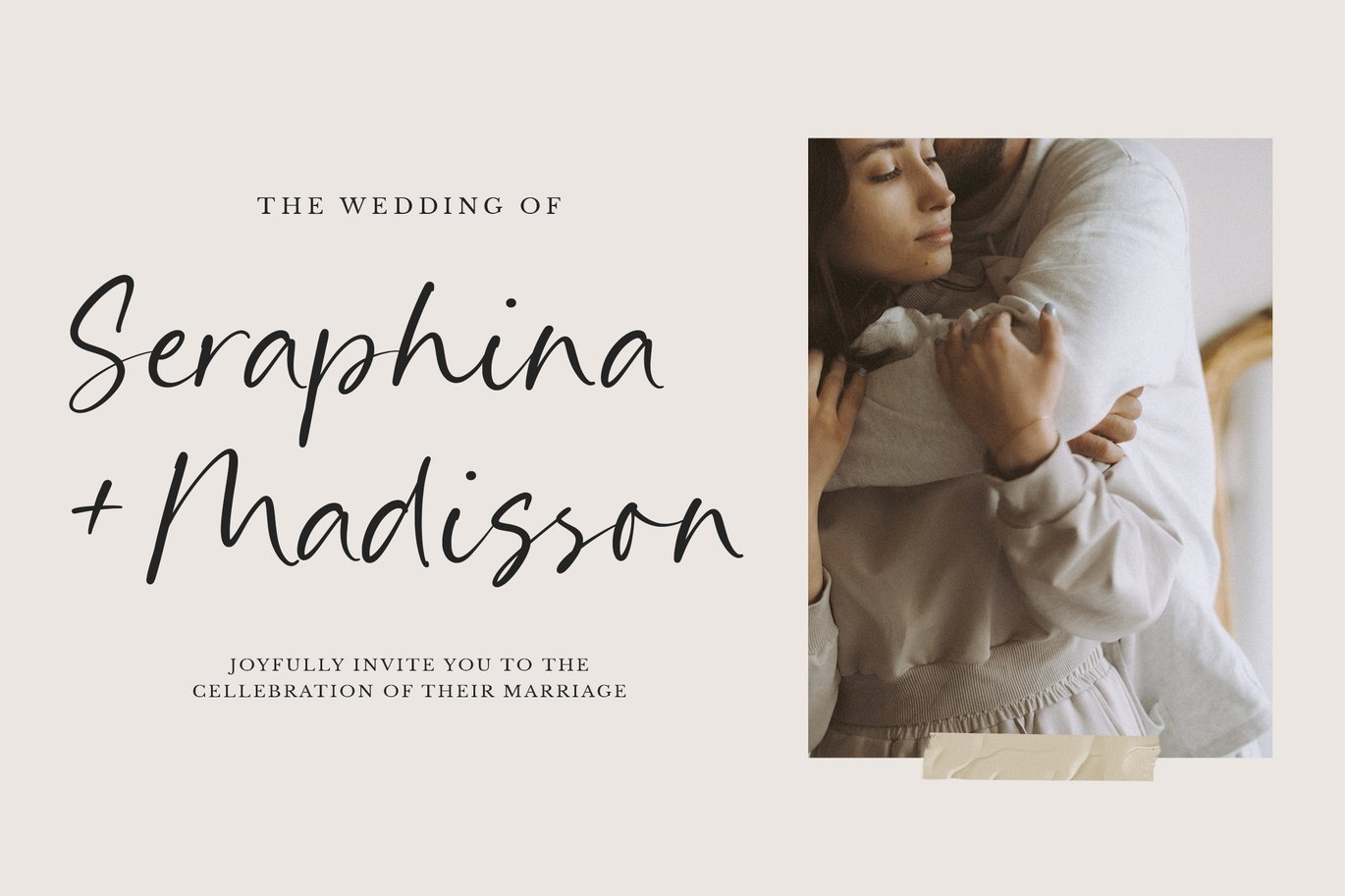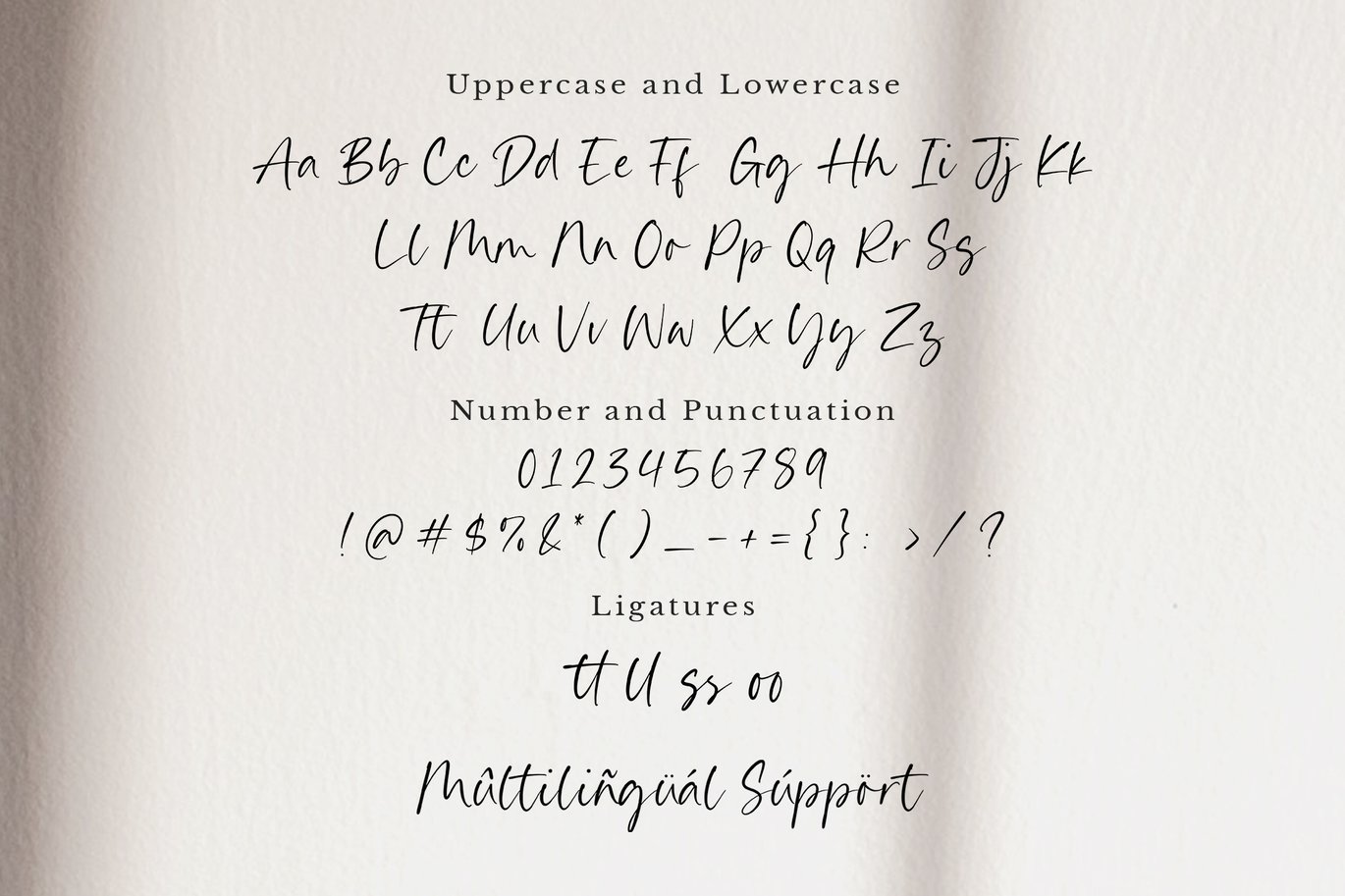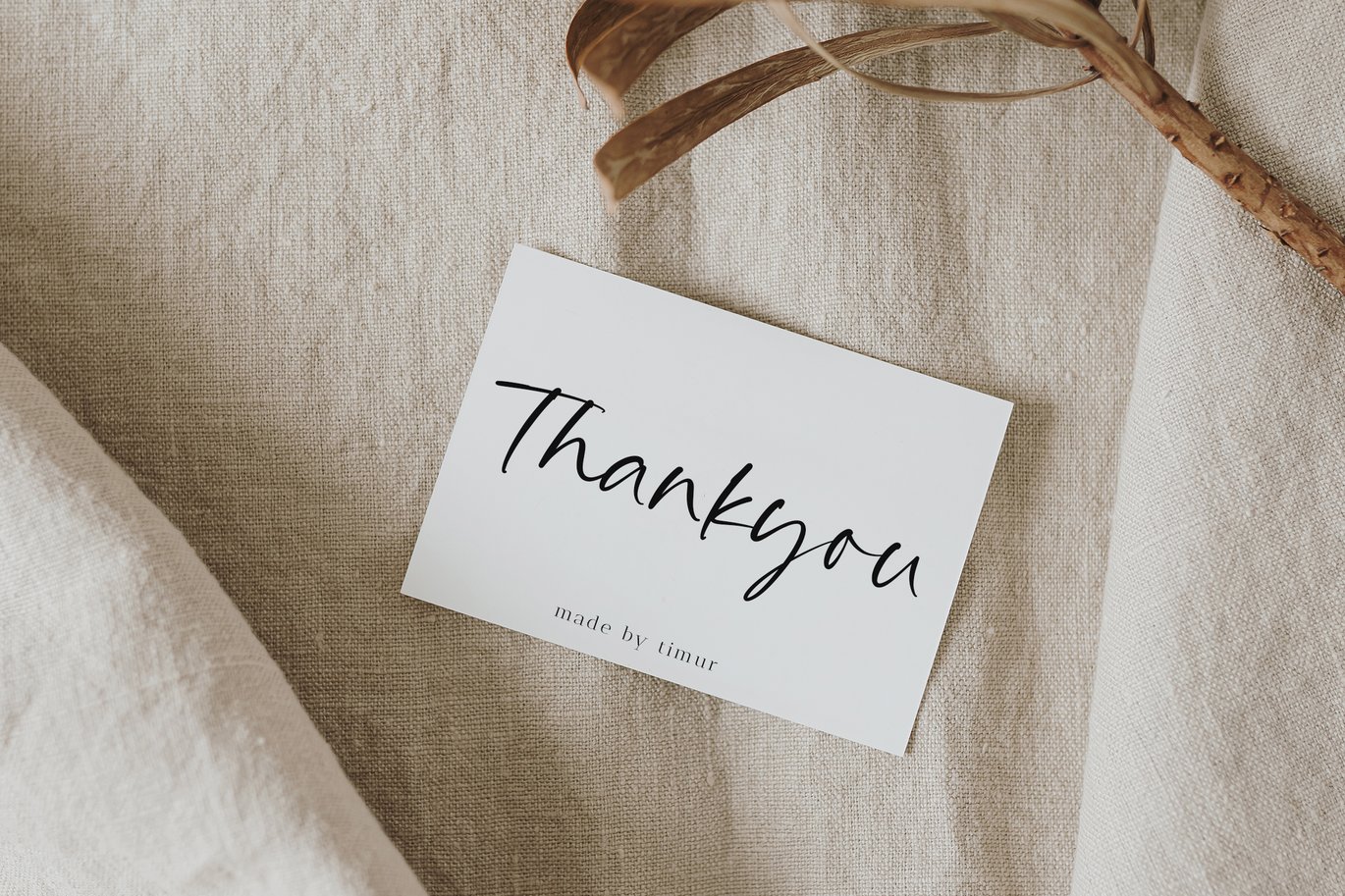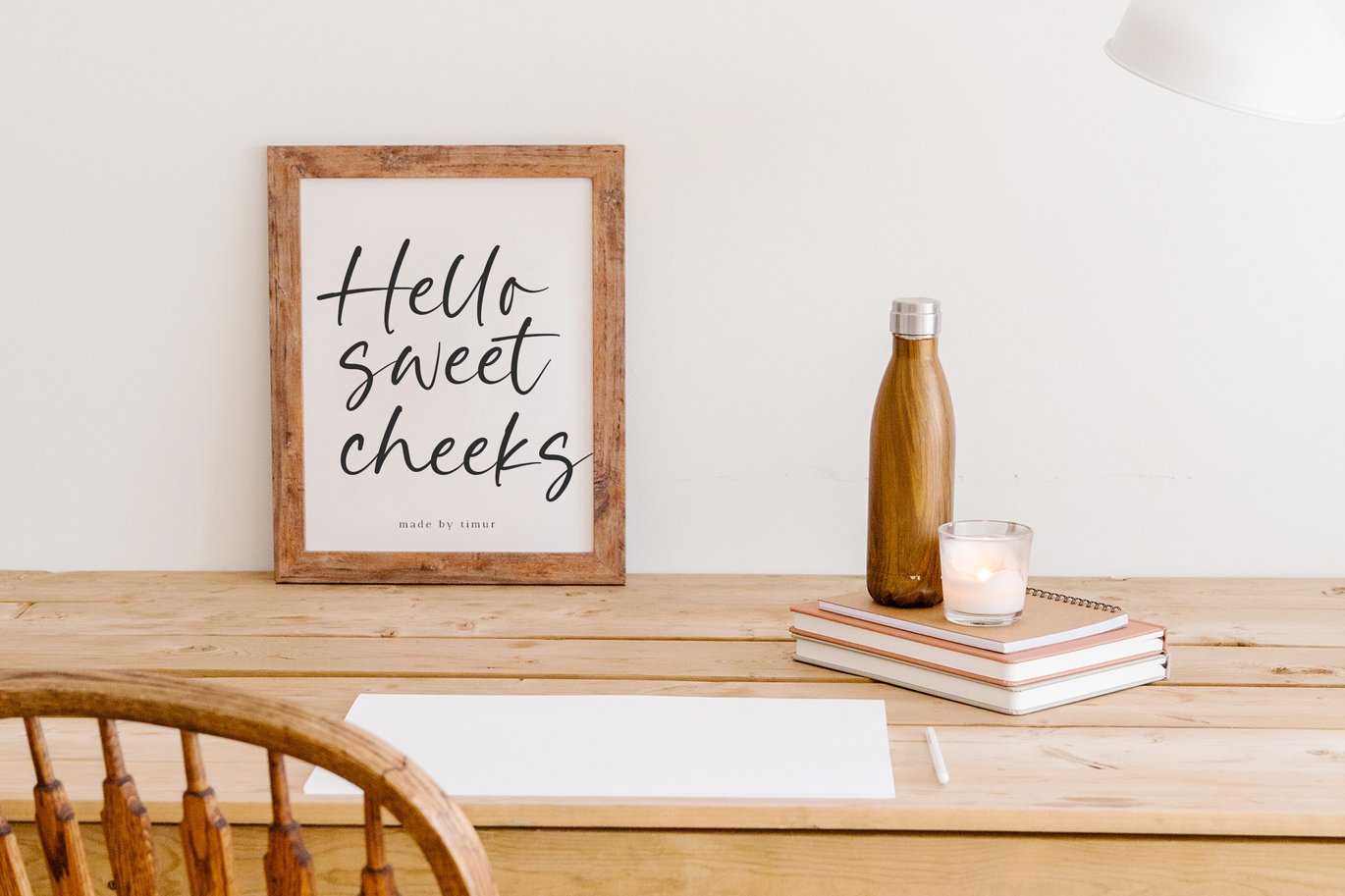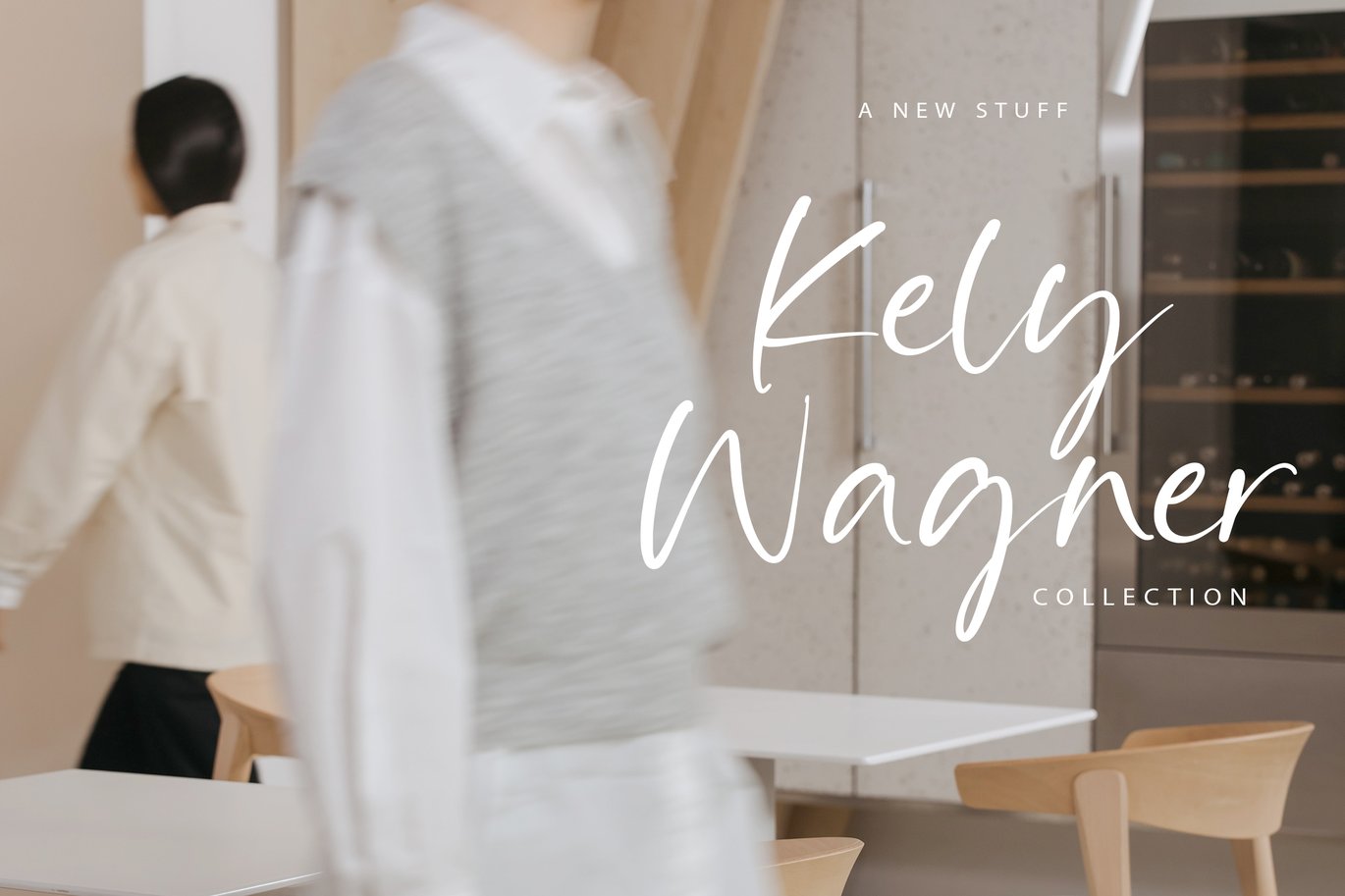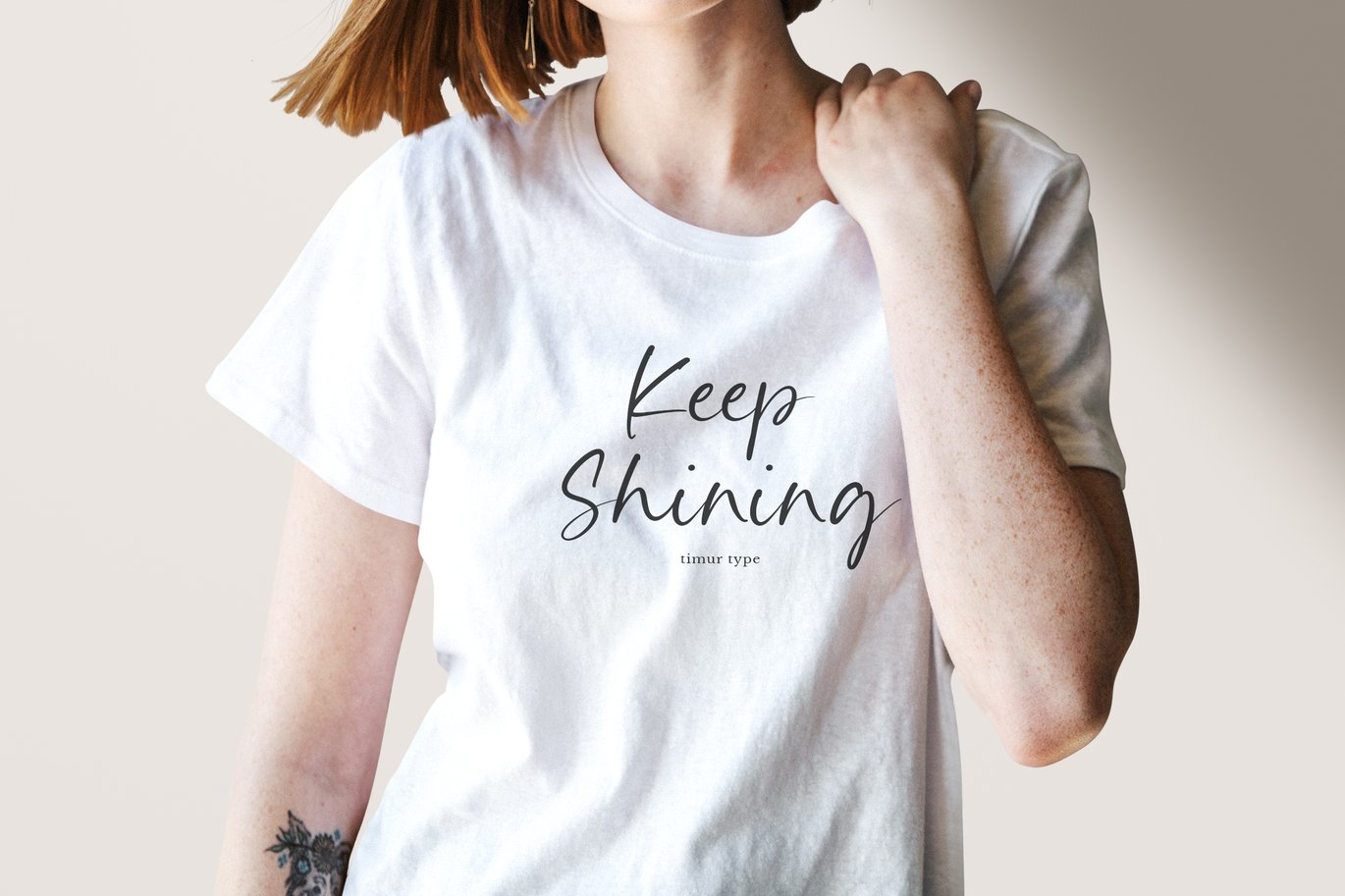
Something Basic Handwritten Script Font TT
Proudly Present, Something Basic
Something Basic A Handwritten Script Font , which was created with great care and specially created for you
Something Basic is perfect for product packaging, branding project, megazine, social media, wedding, or just used to express words above the background.
- Swash
- stylistic Alternate
- multilingual support.